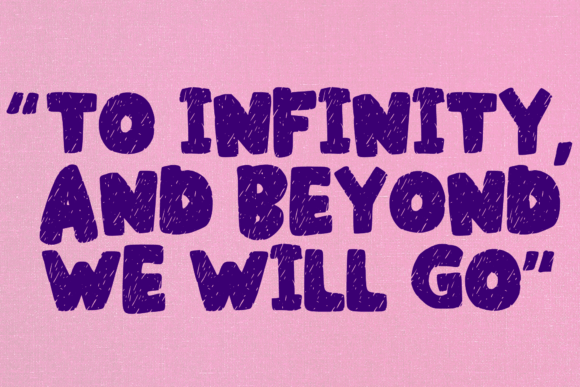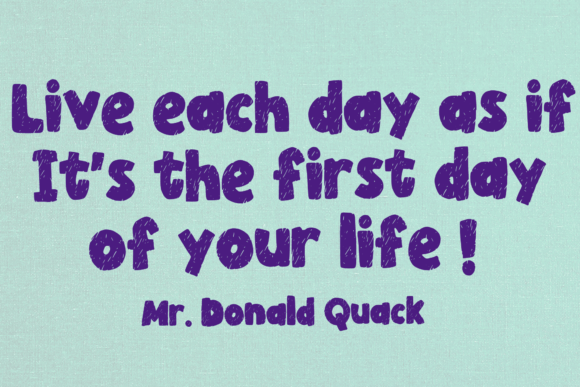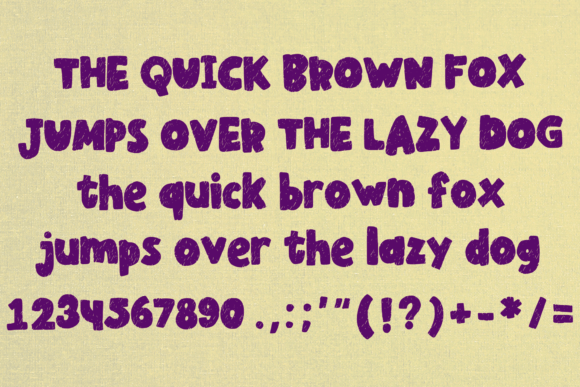
Baby Bouncy Font: Add a Playful Touch to Your Designs
Are you looking for a font that can add a playful and casual touch to your designs? Look no further than the Baby Bouncy font! This textured handwritten font is perfect for a wide range of projects, from t-shirts and comics to social media posts and kid’s book designs. In this article, we’ll take a closer look at the Baby Bouncy font and explore its many uses.
What is Baby Bouncy Font?
Baby Bouncy is a playful textured handwritten font that is designed to add a fun and casual touch to your designs. Its unique texture and bouncy feel make it perfect for projects that require a playful and youthful vibe. The font is highly versatile and can be used for a wide range of applications, from digital designs to print materials.
Uses of Baby Bouncy Font
The Baby Bouncy font is incredibly versatile and can be used for a wide range of projects, including:
- T-shirts and apparel: Add a playful touch to your t-shirt designs with the Baby Bouncy font. Its casual and fun vibe makes it perfect for designing custom apparel.
- Comics and illustrations: The Baby Bouncy font is perfect for comic book designs, illustrations, and cartoons. Its playful texture adds a fun and youthful touch to your artwork.
- Magazines and publications: Use the Baby Bouncy font to add a playful touch to your magazine designs, including headings, titles, and captions.
- Social media posts: Add a fun and casual touch to your social media posts with the Baby Bouncy font. Its playful texture is sure to grab the attention of your followers.
- Greeting cards and invitations: The Baby Bouncy font is perfect for designing greeting cards, invitations, and other paper crafts.
- Stickers and decals: Use the Baby Bouncy font to design fun and playful stickers and decals for kids and adults alike.
- Posters and flyers: Add a playful touch to your poster and flyer designs with the Baby Bouncy font.
- Kid’s book designs: The Baby Bouncy font is perfect for designing children’s books, including picture books, early readers, and activity books.
Why Choose Baby Bouncy Font?
So why choose the Baby Bouncy font for your designs? Here are just a few reasons:
- Playful and fun: The Baby Bouncy font adds a playful and fun touch to your designs, making it perfect for projects that require a youthful and energetic vibe.
- Highly versatile: The Baby Bouncy font can be used for a wide range of projects, from digital designs to print materials.
- Easy to read: Despite its playful texture, the Baby Bouncy font is easy to read and understand, making it perfect for body text and captions.
- Unique texture: The Baby Bouncy font has a unique texture that sets it apart from other fonts. Its bouncy feel adds a fun and playful touch to your designs.
How to Use Baby Bouncy Font
Using the Baby Bouncy font is easy! Here are a few tips to get you started:
- Pair it with other fonts: The Baby Bouncy font pairs well with other fonts, including sans-serif and serif fonts. Experiment with different font combinations to find the perfect look for your design.
- Use it for headings and titles: The Baby Bouncy font is perfect for headings and titles. Use it to add a playful touch to your design.
- Add a playful touch: Don’t be afraid to add a playful touch to your design with the Baby Bouncy font. Its fun and energetic vibe makes it perfect for projects that require a youthful and playful feel.
In conclusion, the Baby Bouncy font is a playful textured handwritten font that is perfect for adding a fun and casual touch to your designs. Its highly versatile and can be used for a wide range of projects, from t-shirts and comics to social media posts and kid’s book designs. With its unique texture and bouncy feel, the Baby Bouncy font is sure to add a playful touch to your designs. Try it today and feel the good vibes!